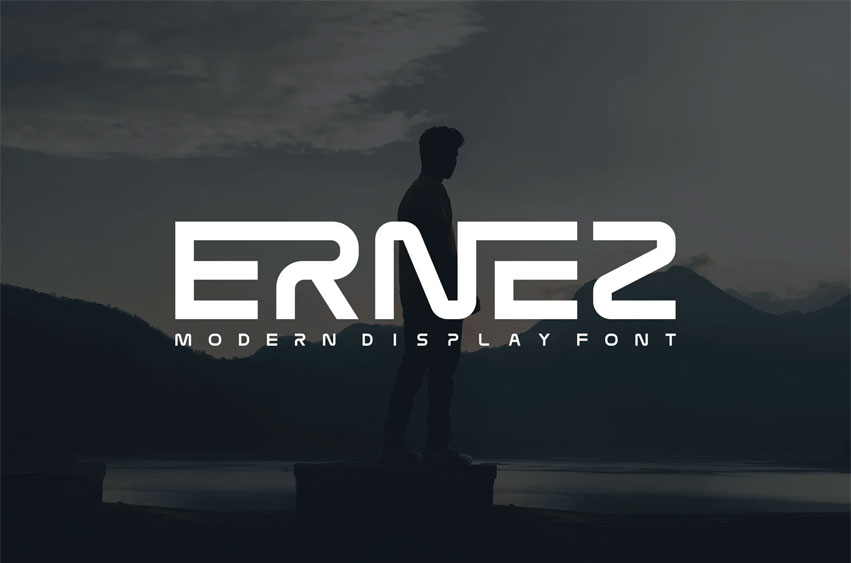
Ernez Font Display Modern Font is a bold and authentic display font. The font is suitable for any branding project like logo, esport, and many more.
- Lowercase
- Alternate Uppercase
- Ligature Uppercase
- Ligature Lowercase